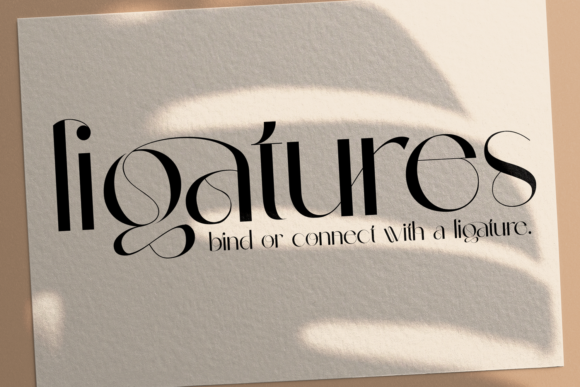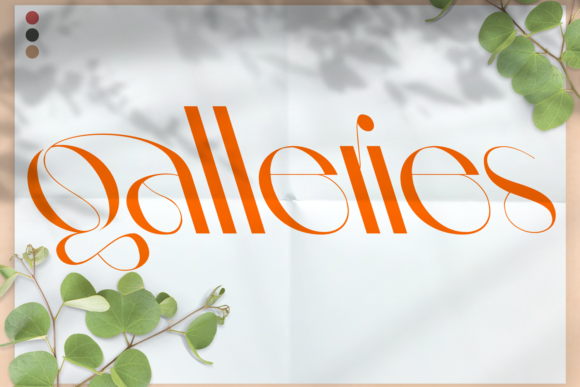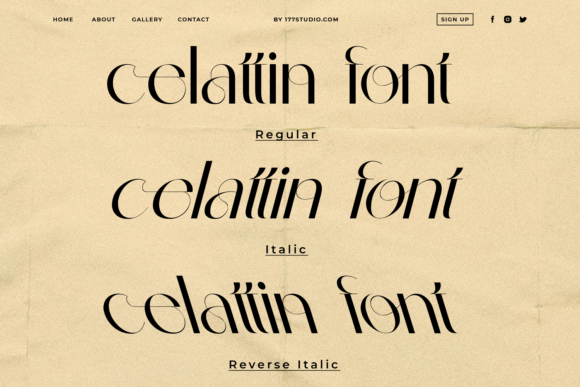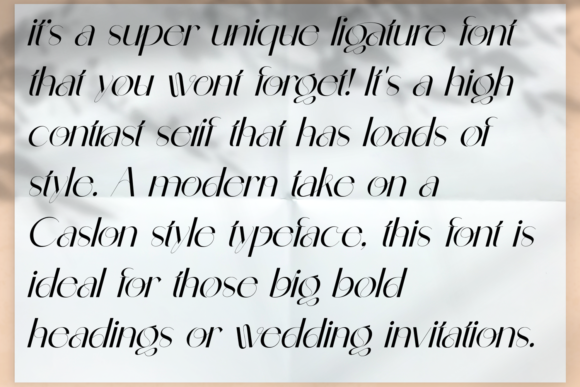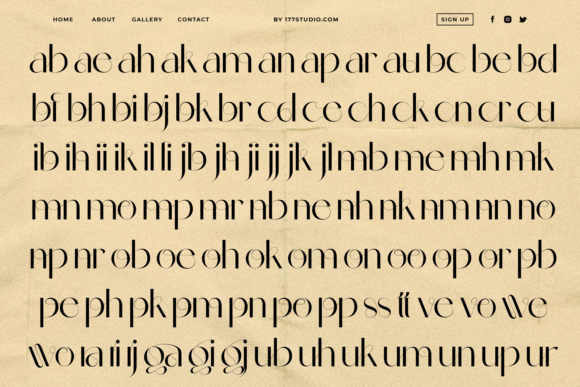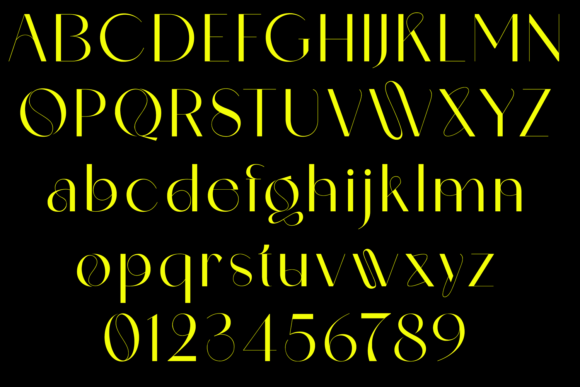
Introducing Celattin Font: Elevate Your Designs with Elegance
Are you a designer or crafter looking for a font that exudes sophistication and style? Look no further than Celattin Font, an elegant serif font designed to elevate your designs to new heights. With its versatility and wide range of applications, Celattin is the perfect choice for various projects, from cover designs and posters to UI, branding, fashion, logos, social media templates, packaging, and more.
The Characteristics of Celattin Font
So, what makes Celattin Font stand out from the rest? For starters, its elegant serif design gives it a classic and sophisticated look that’s perfect for designs that require a touch of refinement. The font is also PUA encoded, which means you can easily access all the glyphs and swashes, giving you more creative freedom and flexibility.
Celattin Font is a versatile font that can be used for a wide range of design applications. Here are some of the ways you can use Celattin to elevate your designs:
- Cover Designs: Create stunning book covers, magazine covers, or album covers with Celattin’s elegant serif design.
- Posters: Design eye-catching posters for events, promotions, or advertisements with Celattin’s bold and sophisticated style.
- UI: Use Celattin to create intuitive and visually appealing user interfaces for websites, apps, or software.
- Branding: Establish a strong brand identity with Celattin’s elegant and refined design.
- Fashion: Create stylish and trendy fashion designs, such as logos, labels, or advertisements, with Celattin’s sophisticated look.
- Logos: Design professional and memorable logos for businesses or organizations with Celattin’s unique and elegant style.
- Social Media Templates: Create engaging and visually appealing social media templates with Celattin’s modern and sophisticated design.
- Packaging: Design eye-catching packaging for products with Celattin’s elegant and refined style.
Benefits of Using Celattin Font
So, why should you choose Celattin Font for your designs? Here are some benefits of using Celattin:
- Elegant Design: Celattin’s elegant serif design gives your designs a sophisticated and refined look.
- Versatility: Celattin can be used for a wide range of design applications, from print to digital.
- PUA Encoding: Celattin’s PUA encoding makes it easy to access all the glyphs and swashes, giving you more creative freedom.
Tips for Using Celattin Font
Here are some tips for using Celattin Font to get the most out of your designs:
- Experiment with Different Sizes: Celattin looks great in various sizes, so experiment with different sizes to find the one that works best for your design.
- Pair with Other Fonts: Celattin pairs well with other fonts, so try pairing it with different fonts to create a unique and visually appealing design.
- Use Swashes and Glyphs: Take advantage of Celattin’s PUA encoding and use the swashes and glyphs to add more creativity and elegance to your designs.
In conclusion, Celattin Font is an elegant serif font that’s perfect for designers and crafters looking to elevate their designs to new heights. With its versatility, elegant design, and PUA encoding, Celattin is the perfect choice for various design applications. Whether you’re designing a book cover, poster, or logo, Celattin is sure to give your design a sophisticated and refined look.